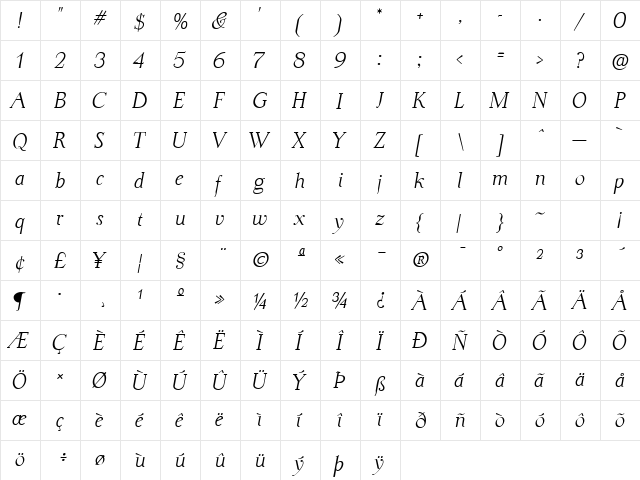
Dyrynk Italic P22 Regular
Design Context for Dyrynk Italic P22 Typeface
Dyrynk Italic P22 takes a measured approach to typography — its balanced proportions and neutral character make it a reliable workhorse for both digital and print work. The slanted form adds forward momentum and visual energy.
Pro Tip: Try Dyrynk Italic P22 for annotation and caption copy alongside an upright companion — the contrast in angle creates a dynamic but ordered typographic system.